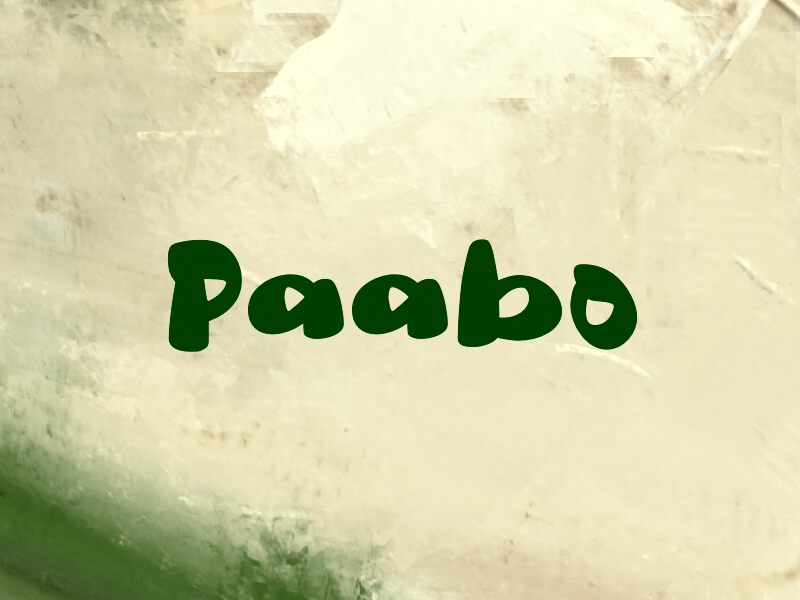
Paabo font is a friendly cartoon typeface created by wep. The free font has an informal personality and a slightly playful feel due to its rounded pleasant appearance. Even though simple, the font letters are dynamic and inviting and are sure to add a special spark to every design project which they become part of.
This latter fact makes Paabo a perfect match for contemporary applications in leisure and entertainment. Bring it on board when dealing with design work in bars, cafes, bistro restaurants, amusement parks, and more. The free font will also make a great candidate for publishing work such as appealing front covers and titles.
Paabo is a versatile free font that blends modern design with classic elegance. Crafted with attention to detail, it is perfect for a variety of projects, from branding to digital media. This font is easy to download and install, making it an excellent choice for graphic designers and hobbyists alike.